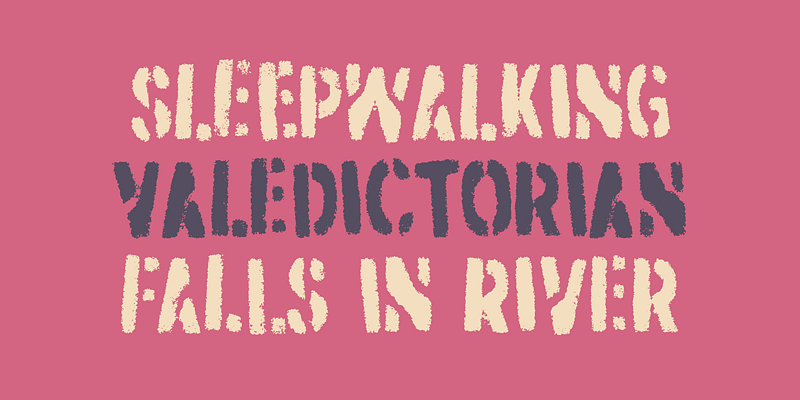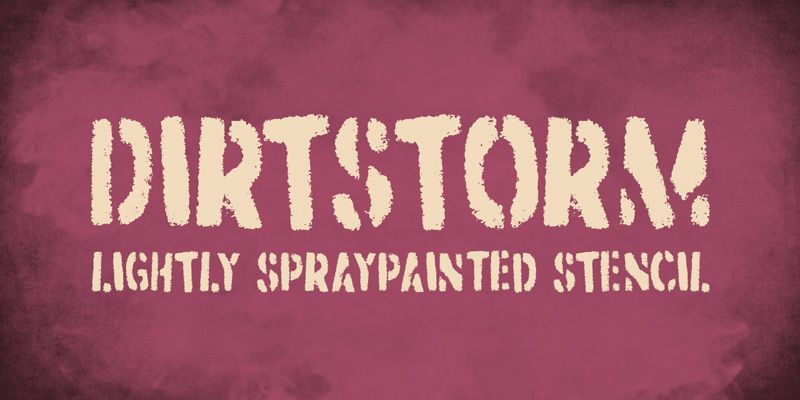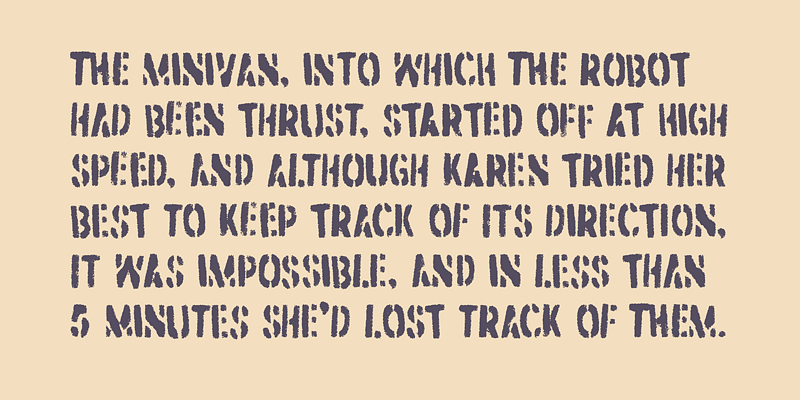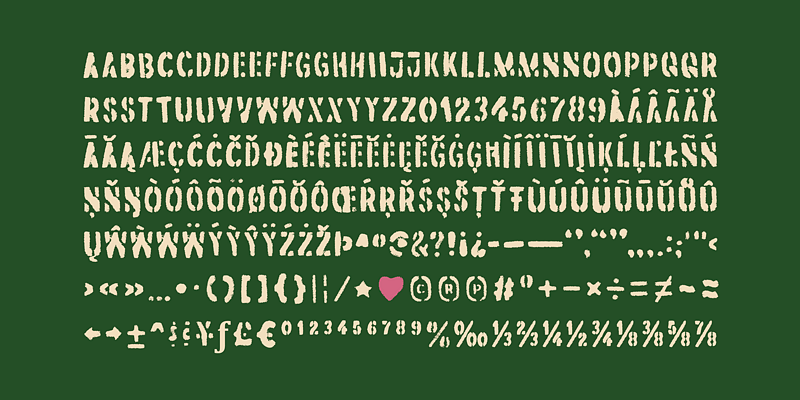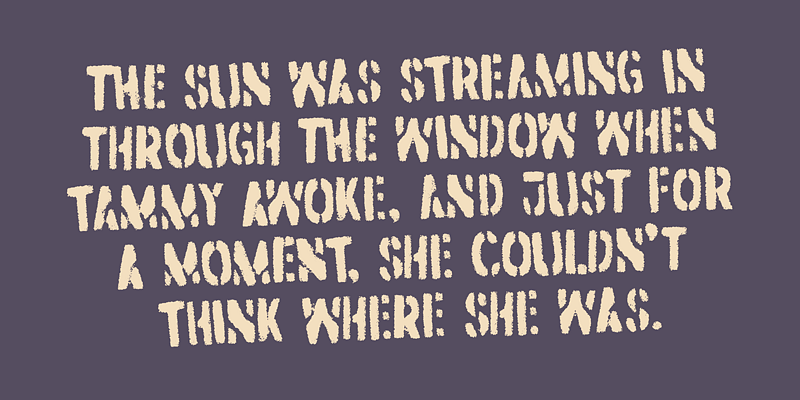
Dirtstorm has the urgency of a message sprayed through hand-cut cardboard. Uneven cuts, ragged paint, and inconsistent stencil bridges keep the alphabet closer to an improvised public sign than to a standardized military marking. It gives union campaigns, environmental events, benefit concerts, and community actions a direct voice that can move between posters, rally graphics, social images, and merchandise. The roughness also helps fictional walls, temporary structures, and street-level game environments feel inhabited. Use Dirtstorm for short declarations and large identifiers whose rough paint should feel like part of the setting.